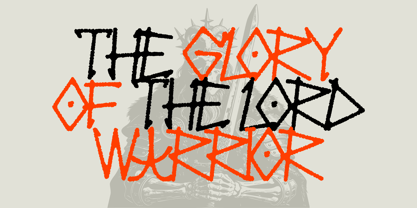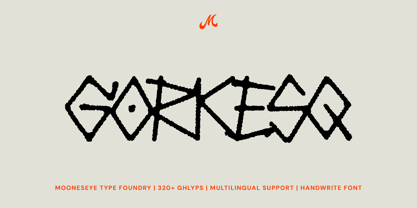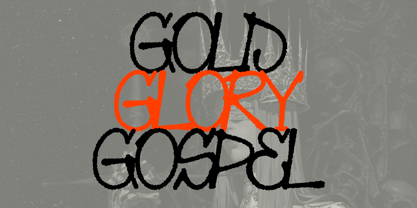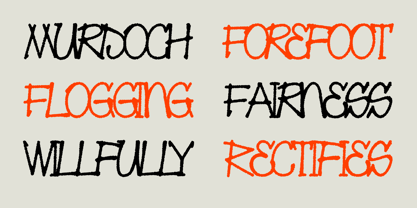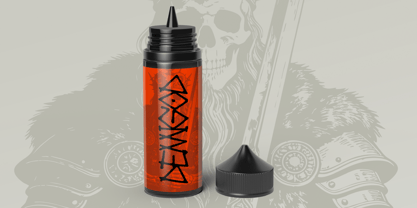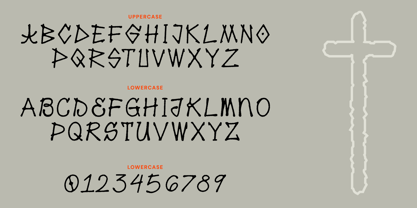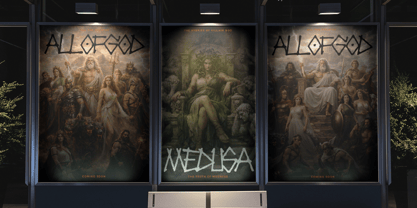
Gorkesq
by Mooneseye Studio
The Gorkesq Font Family was designed by Elhaq Farid and published by Mooneseye Studio. Gorkesq contains 2 styles and family package options.
Gorkesq is more than just a typeface; it’s a modern ritual in digital form. Inspired by ancient runes, petroglyphs, and tribal markings, this font carries a heavy, "primitive" energy that feels both mystical and raw. Each letter is crafted with a jagged, charcoal-like texture, giving your text the appearance of being etched into stone or drawn with ink on parchment.
Whether you are working on a dark folklore book cover, an indie horror game, or an underground streetwear drop, Gorkesq provides a unique visual language that speaks of old gods and forgotten symbols. The contrast between the sharp, runic uppercase and the more rounded, symbolic lowercase allows you to mix and match styles to create truly one-of-a-kind layouts.